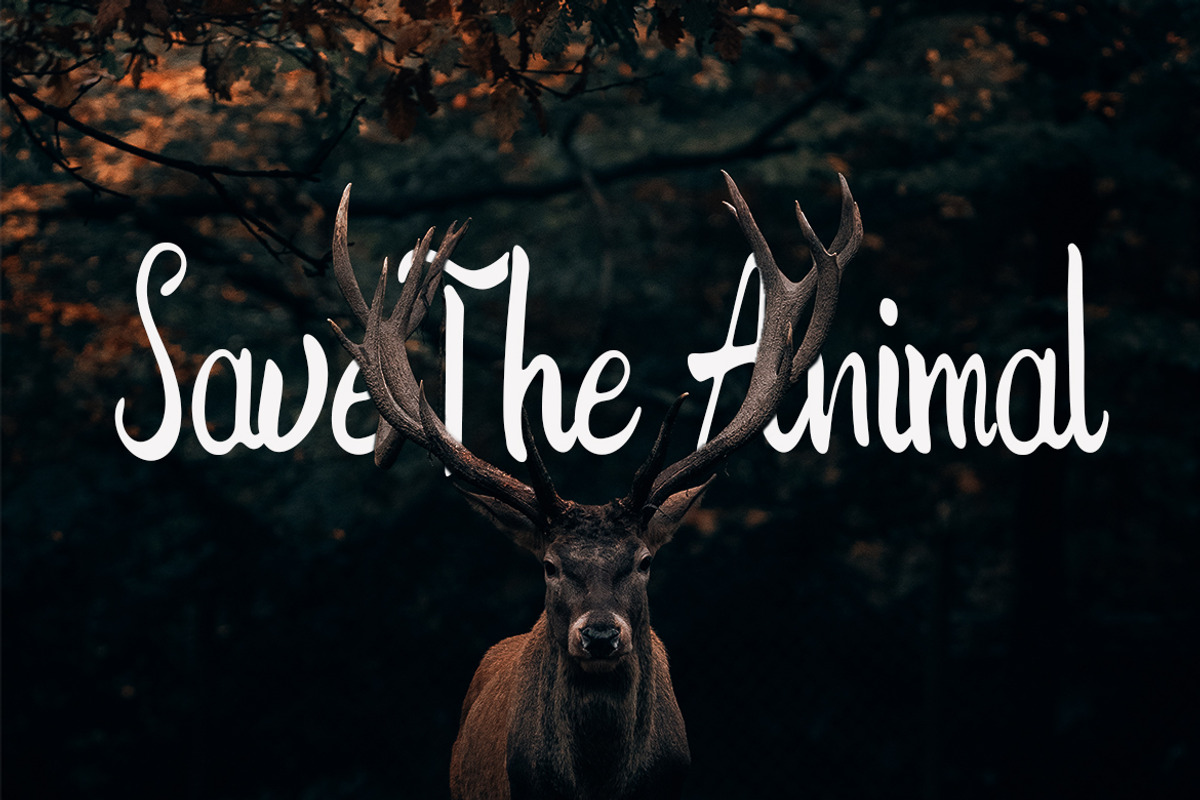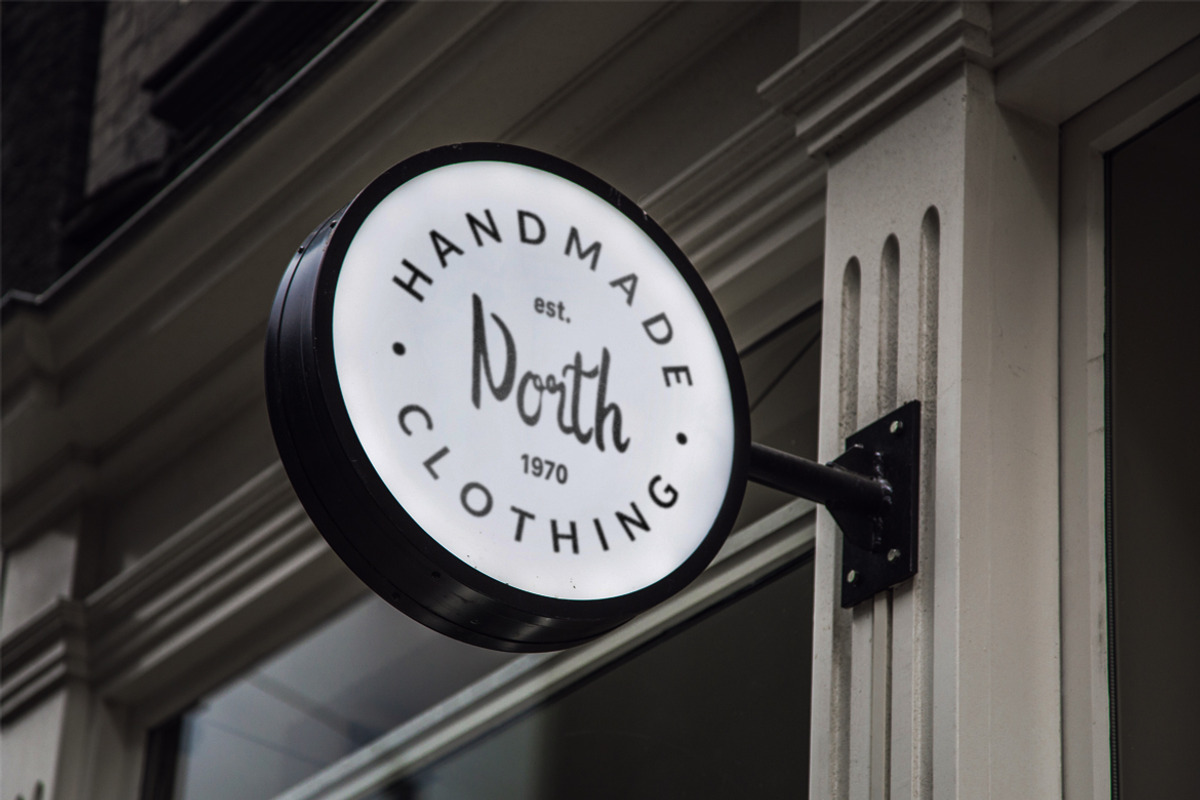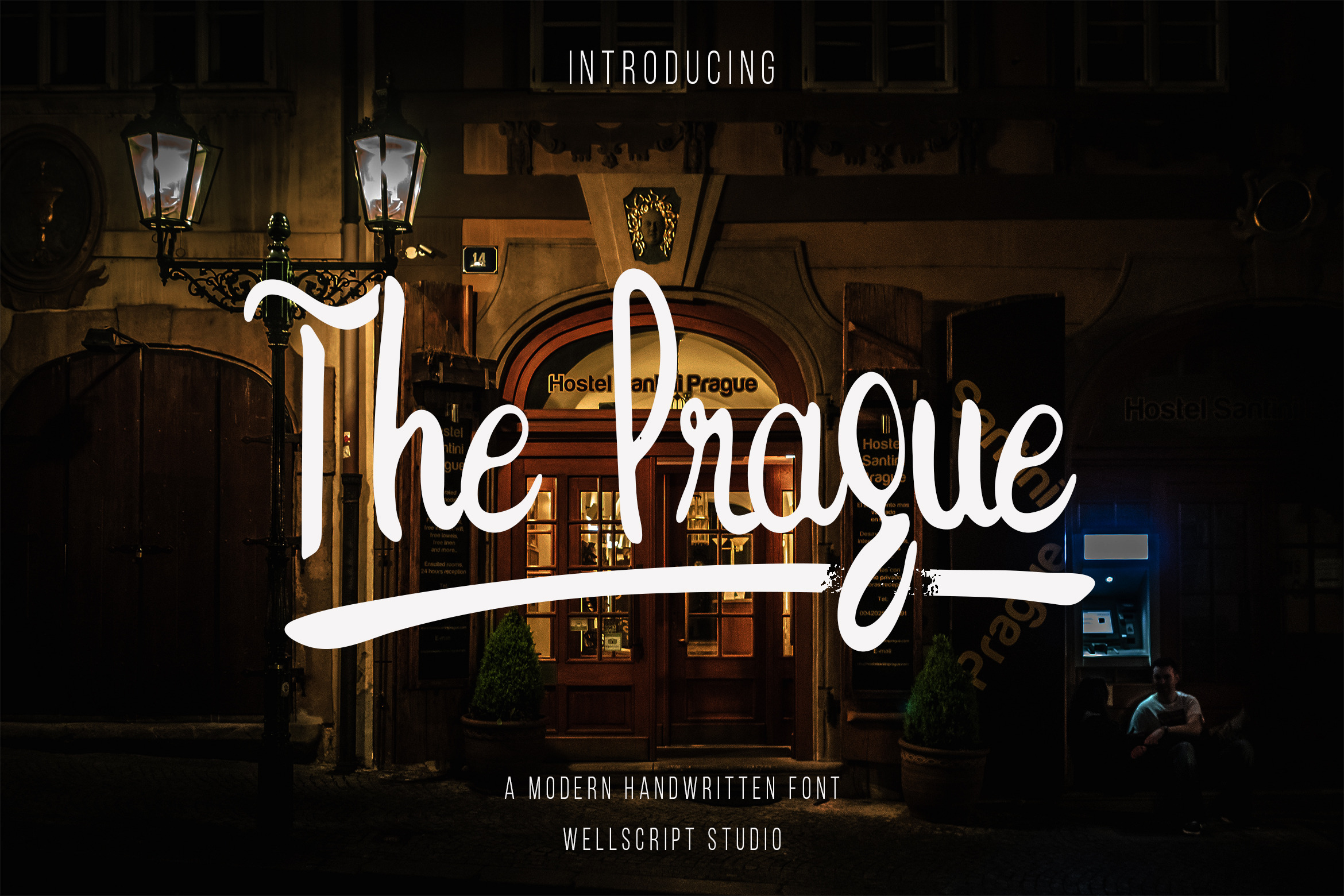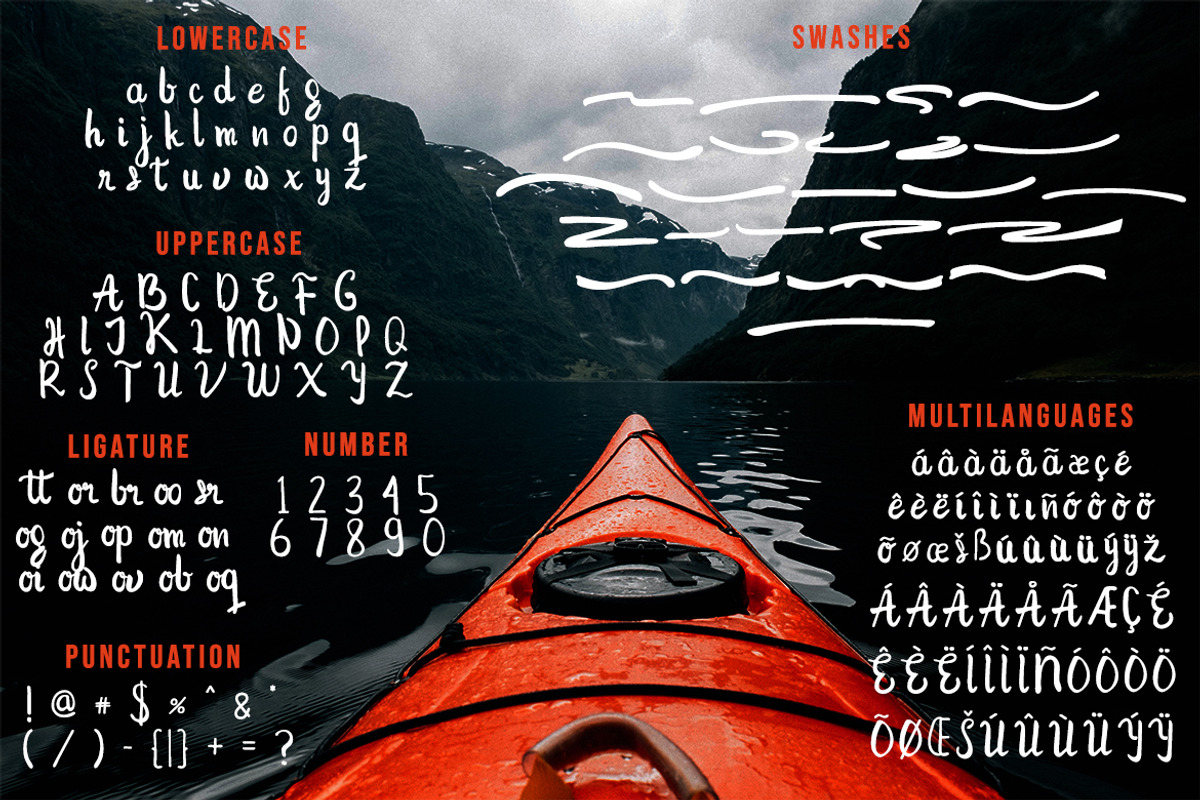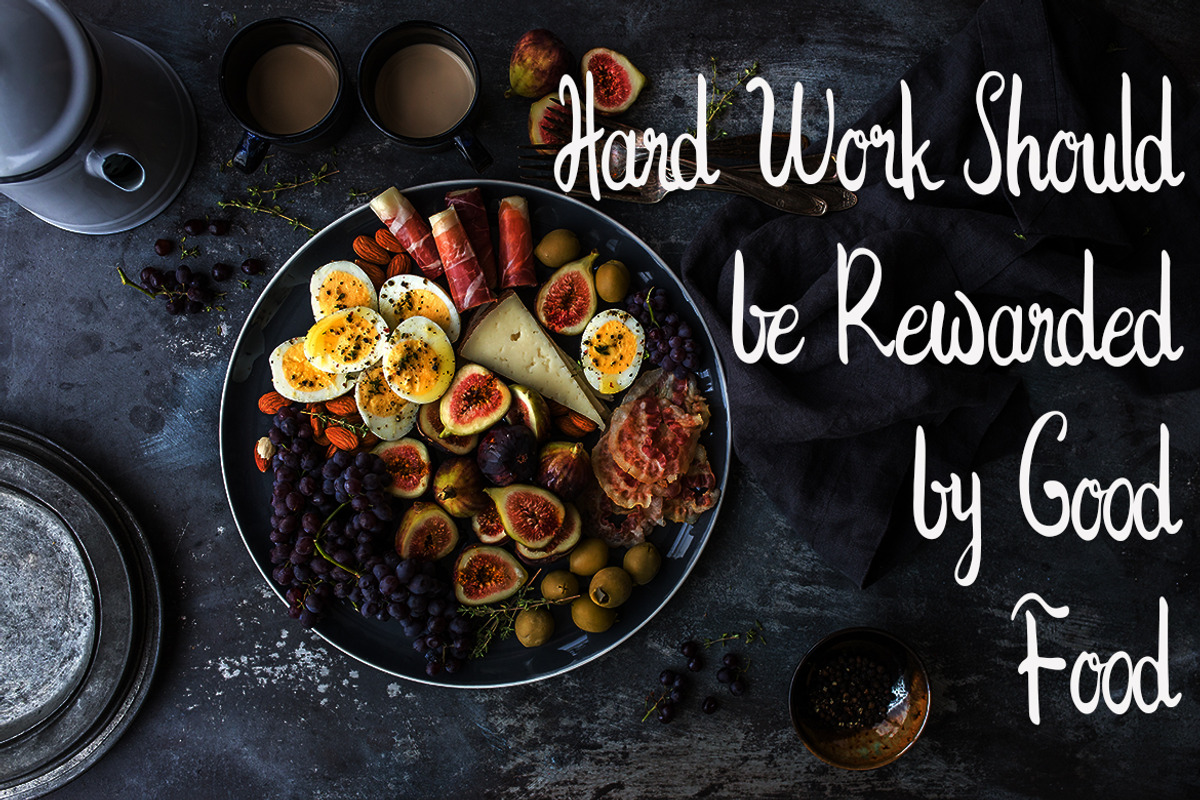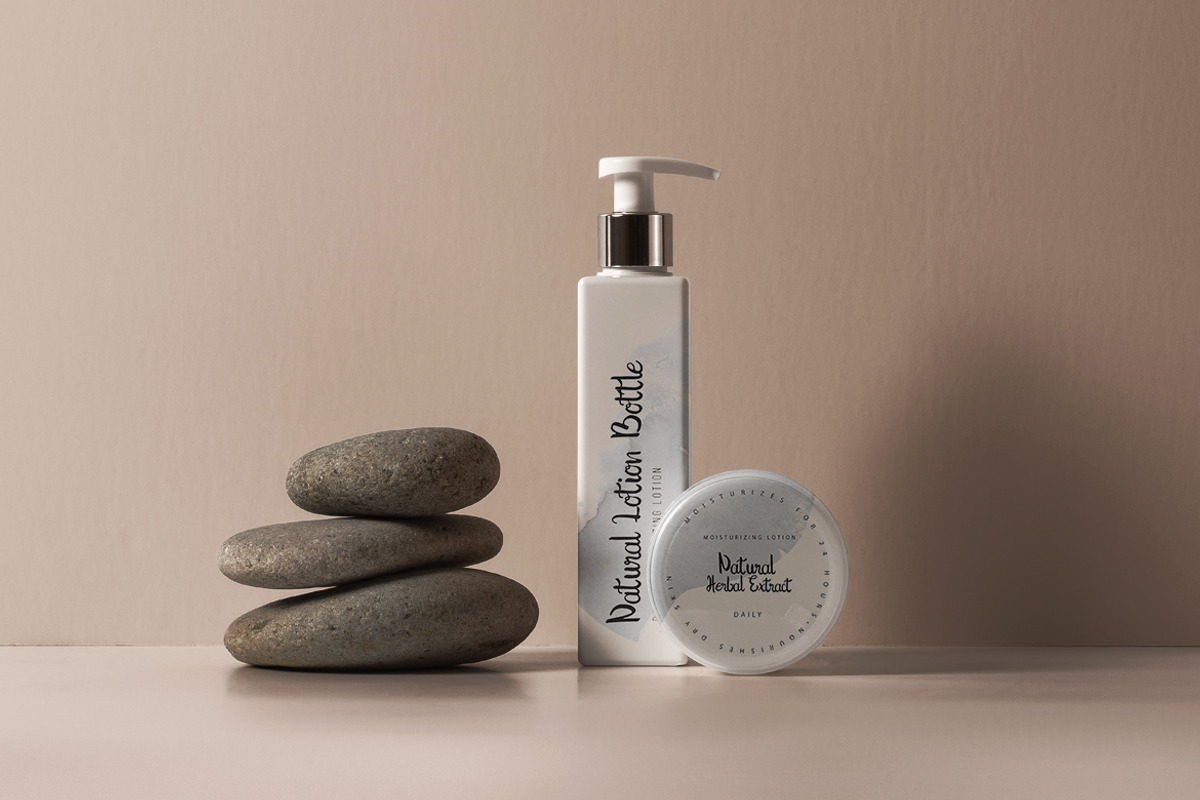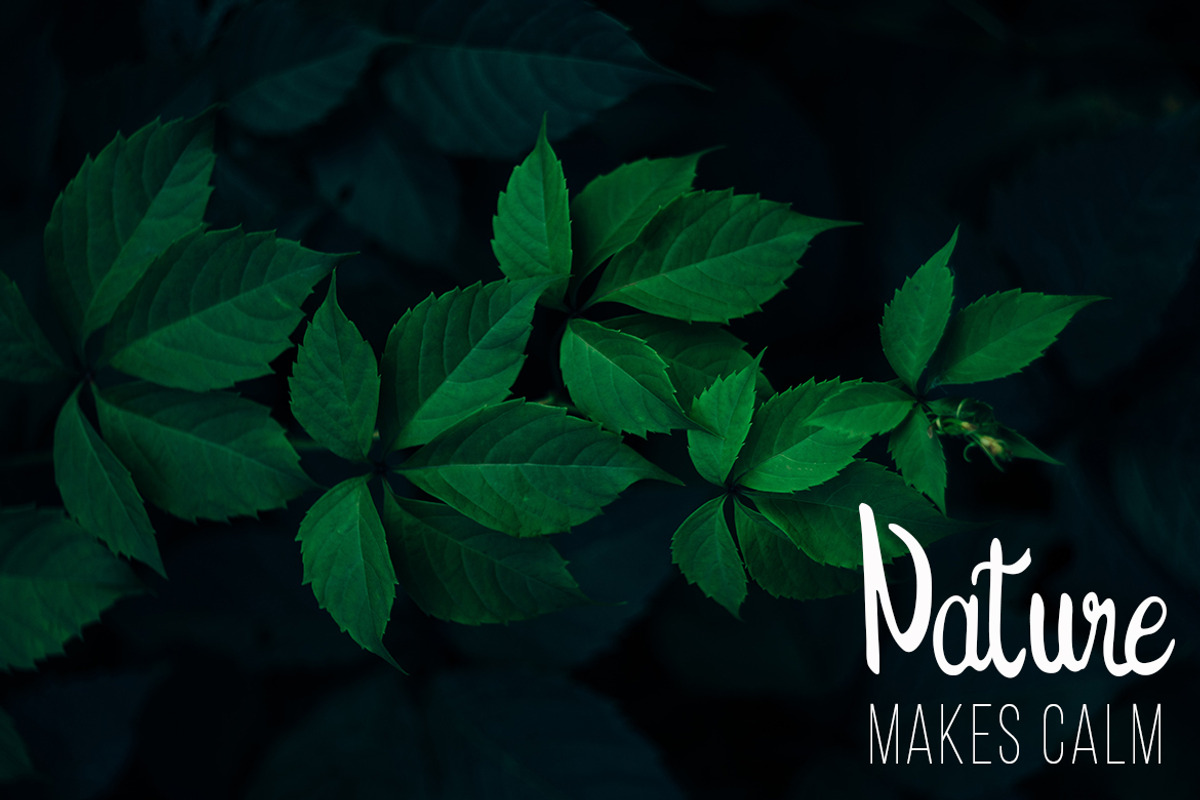
The Prague - Modern Handwritten Font
The Prague Font is beautiful and easy to read handwritten font by Wellscript Studio. This font have smooth curves and lines.
The Prague Font is perfect for branding projects, logo, wedding designs, social media posts, advertisements, product packaging, product designs, label, photography, watermark, invitation, stationery and any projects that need handwriting taste. 24 Swashes just hit a - x
- Features :Swashes, Number, Punchtuation, Ligature, Multilingual Support